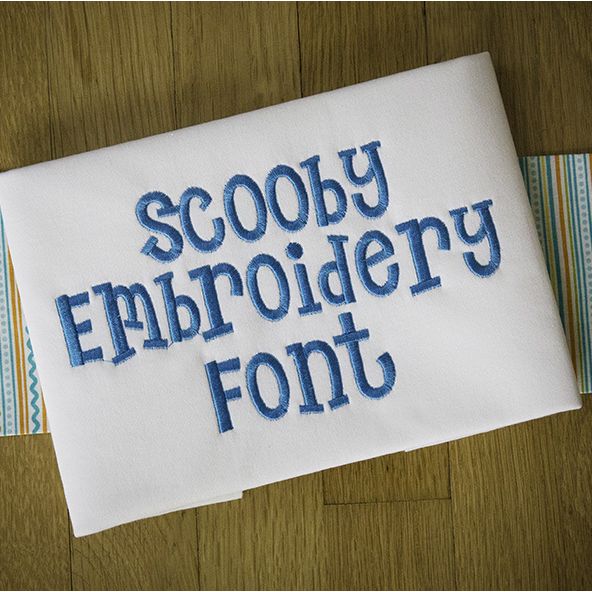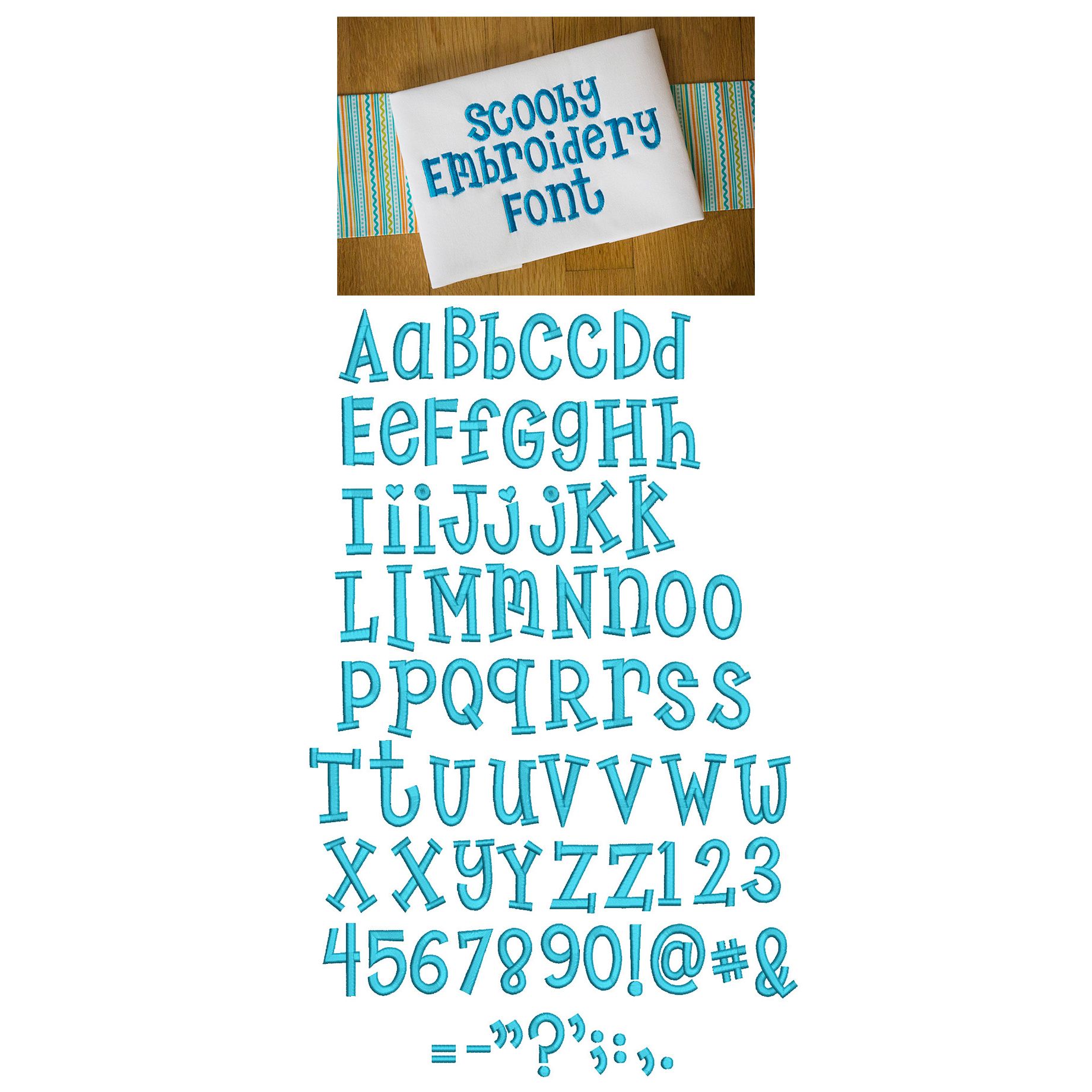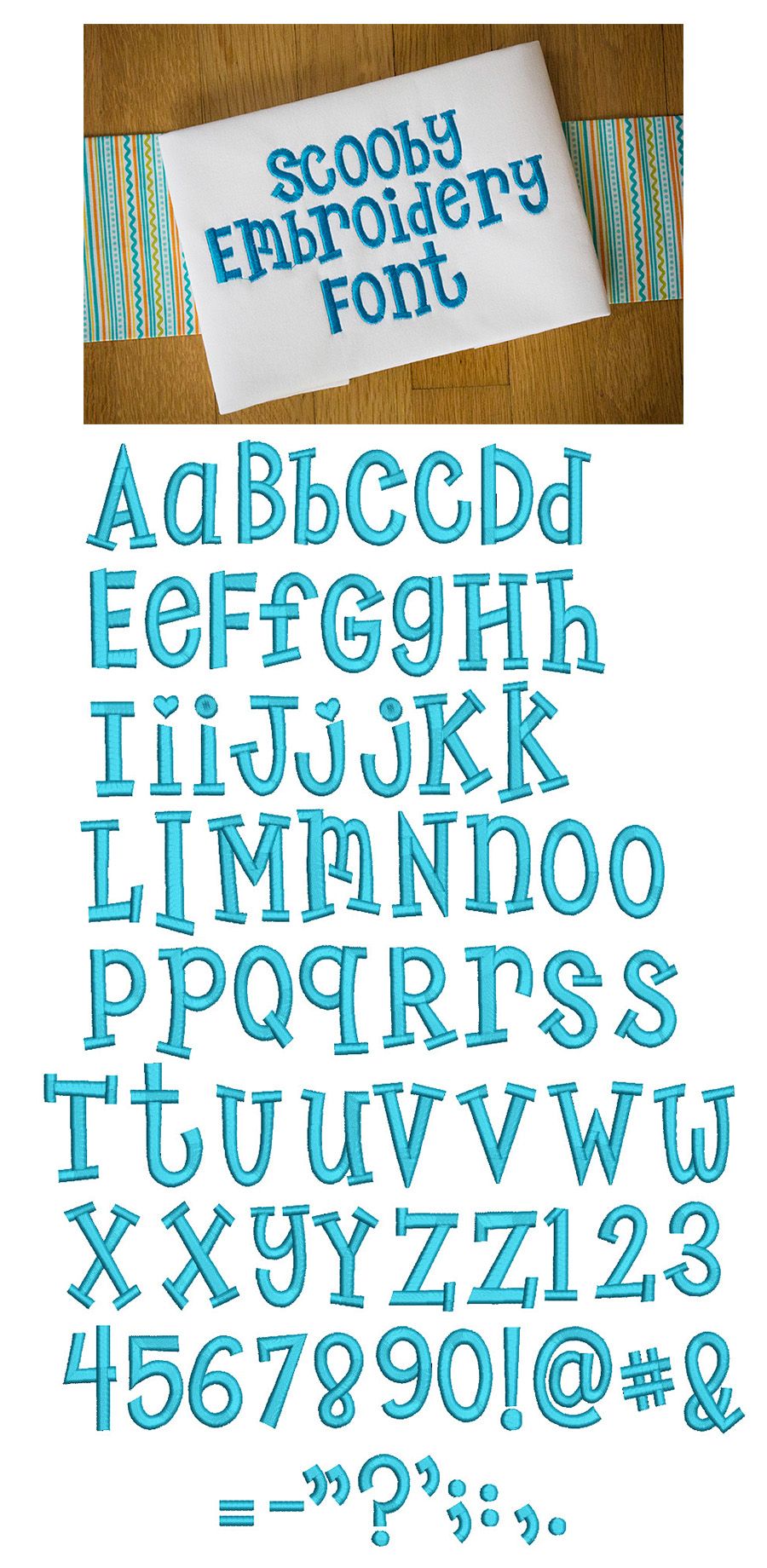
Scooby Satin Stitch Embroidery Font
An adorable, thick, chunky and whimsical font! All of our font alphabets are 100% manually digitized to bring you maximum stitch quality.